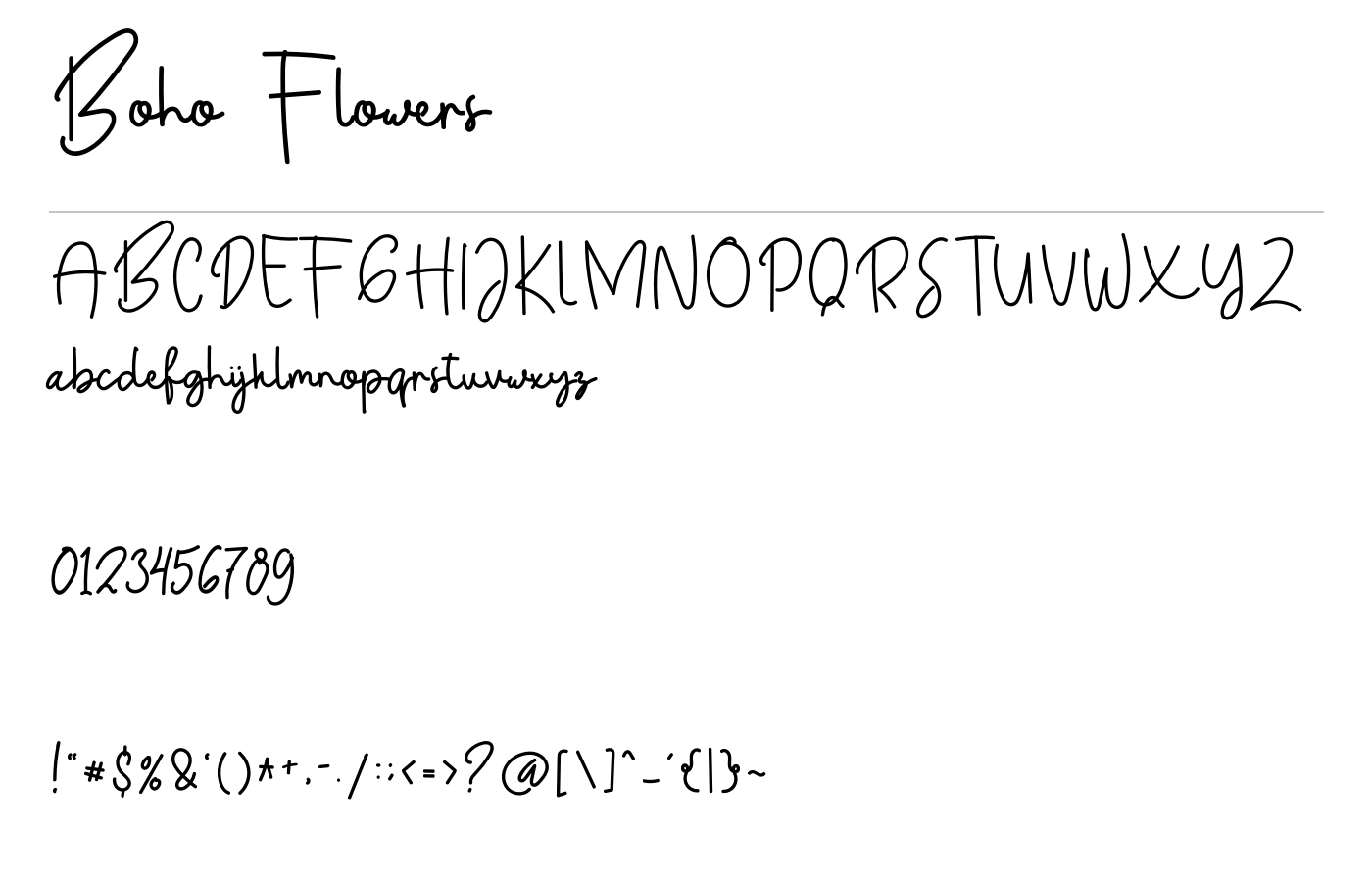
Boho Flowers is a playful and casual handwritten font with a light, airy feel and slightly irregular, charming strokes. Its slender, uneven letterforms and informal style make it perfect for creative branding, invitations, and projects that want to convey a relaxed, friendly vibe. This font works best in designs seeking a personal, approachable touch without sacrificing legibility.
Boho Flowers Font
About Boho Flowers Font
| Font family | Boho Flowers Font |
| Designer | Nur Edi Prayitno |